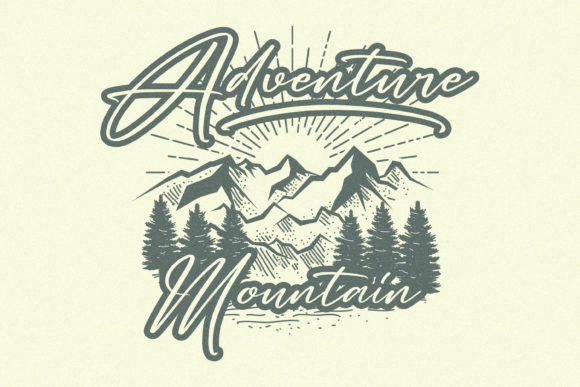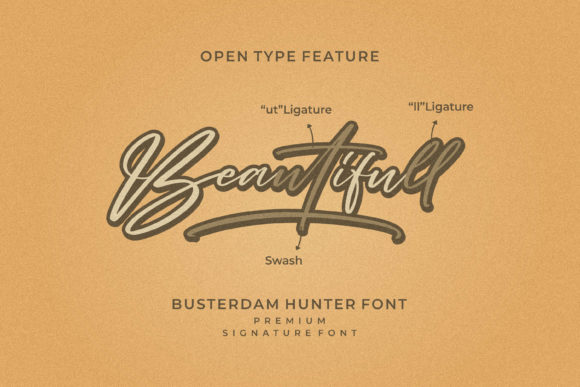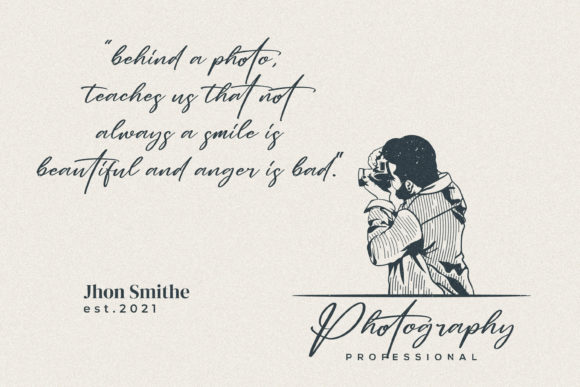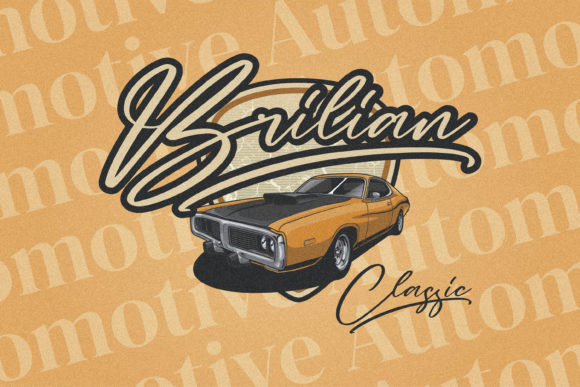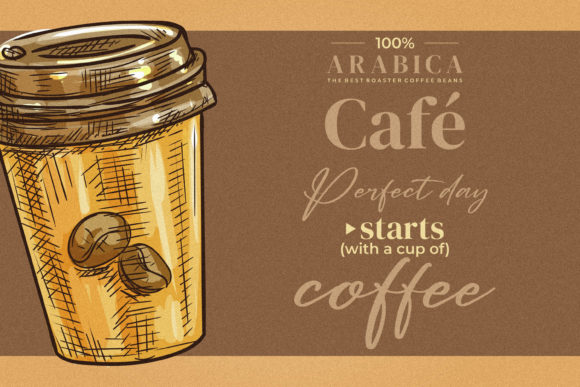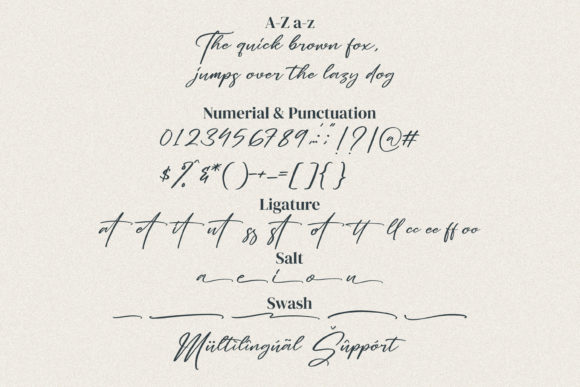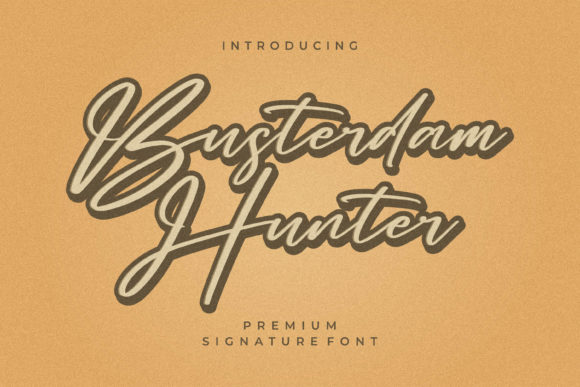
Busterdam Hunter Font: Elevate Your Designs with Luxury and Elegance
Are you a designer or crafter looking for a unique and stunning font to add a touch of luxury to your projects? Look no further than the Busterdam Hunter Font! This beautiful and light handwritten font is sure to make a lasting impression with its distinctive feel and elegant style.
What Makes Busterdam Hunter Font So Special?
Busterdam Hunter Font is a one-of-a-kind font that boasts a unique feel and stunning impact. Its light and airy texture makes it perfect for adding a touch of sophistication and elegance to any design project. Whether you’re working on a logo, branding materials, or marketing collateral, this font is sure to elevate your designs and set them apart from the rest.
Luxury Spark for Your Designs
With Busterdam Hunter Font, you can add a luxury spark to any design project you wish to create. Its beautiful and elegant style makes it perfect for high-end branding, packaging, and advertising materials. Whether you’re working with a corporate client or creating a personal project, this font is sure to bring a touch of sophistication and glamour to your designs.
One of the best things about Busterdam Hunter Font is that it’s PUA (Private Use Area) encoded. This means that you can access all of the amazing glyphs and ligatures with ease, giving you even more creative freedom and flexibility when working with the font. With PUA encoding, you can easily access and use the font’s advanced features, making it easier to create stunning and unique designs.
Busterdam Hunter Font is perfect for designers and crafters who want to add a touch of luxury and elegance to their projects. Whether you’re working on a commercial project or a personal one, this font is sure to help you create stunning and professional-looking designs. Its unique feel and elegant style make it perfect for a wide range of design applications, from branding and advertising to packaging and marketing materials.
Key Features of Busterdam Hunter Font
- Beautiful and light handwritten font with a unique feel and stunning impact
- Perfect for adding a luxury spark to any design project
- Elegant and sophisticated style perfect for high-end branding and advertising
- Perfect for designers and crafters looking to elevate their designs
Tips and Tricks for Working with Busterdam Hunter Font
Here are a few tips and tricks for working with Busterdam Hunter Font:
- Experiment with different font sizes and colors to find the perfect combination for your design
- Use the font’s advanced features, such as glyphs and ligatures, to add an extra touch of elegance and sophistication to your designs
- Pair the font with other elegant fonts to create a stunning and cohesive design
- Don’t be afraid to get creative and try new things – Busterdam Hunter Font is a versatile font that can be used in a wide range of design applications
In conclusion, Busterdam Hunter Font is a beautiful and elegant font that is perfect for designers and crafters looking to add a touch of luxury and sophistication to their projects. With its unique feel and stunning impact, PUA encoding, and elegant style, this font is sure to elevate your designs and set them apart from the rest. So why wait? Download Busterdam Hunter Font today and start creating stunning designs that will leave a lasting impression!